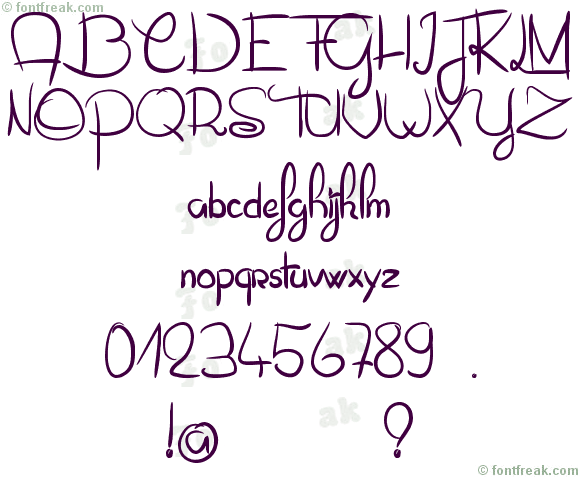
Oliver tue les fourmis
About Oliver tue les fourmis
The "Oliver tue les fourmis" font by Maelle.K is a delightful handwritten typeface that exudes a playful yet elegant charm. This font falls into the script category, characterized by its fluid, cursive strokes that convey a sense of warmth and personality. The stroke weight is consistent, providing a harmonious appearance, while the gentle contrast between thick and thin lines enhances its visual appeal. The spacing is well-balanced, making it easy to read while maintaining an artistic flair.
This font is particularly well-suited for a variety of creative applications. It shines in wedding invitations, where its whimsical style can evoke romance and joy. Additionally, it makes an excellent choice for children’s book covers, adding a friendly and approachable feel. Restaurant menus can also benefit from its unique character, drawing customers in with a touch of creativity. Furthermore, it works beautifully for personalized greeting cards, allowing individuals to express their sentiments in a stylish way.
The target audience for the "Oliver tue les fourmis" font includes graphic designers seeking to add a personal touch to their projects, small business owners looking for a distinctive branding element, and content creators who want to enhance their visual storytelling with an engaging typeface.
What sets the "Oliver tue les fourmis" font apart is its ability to blend fun with sophistication. It stands out in a crowded field of typefaces by offering a unique handwritten quality that feels both personal and contemporary. Its versatility allows it to adapt to various design contexts, making it an excellent choice for anyone in need of a charming, artistic font. For those interested, an "Oliver tue les fourmis font free download" is available, inviting you to explore its creative potential.